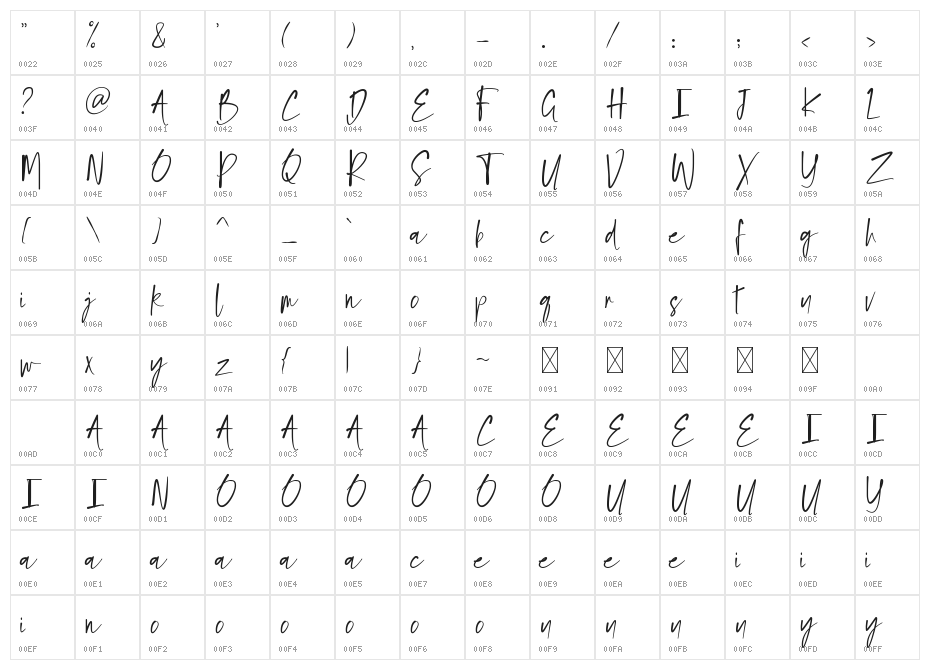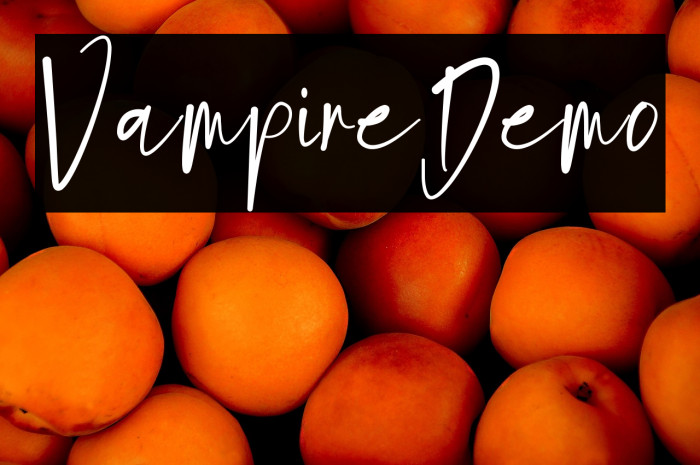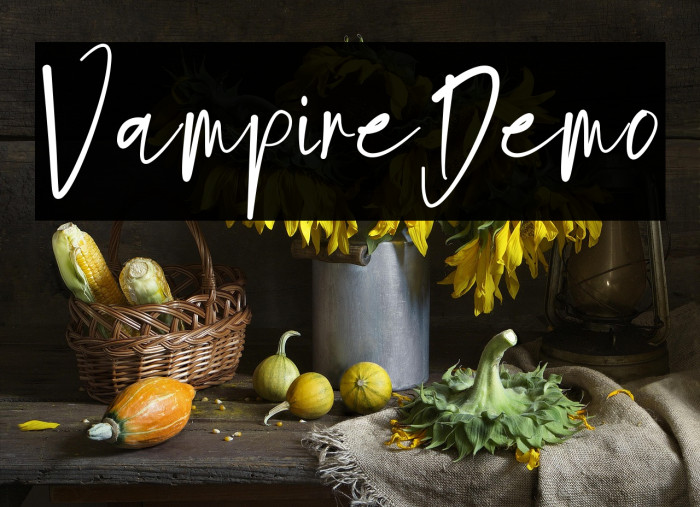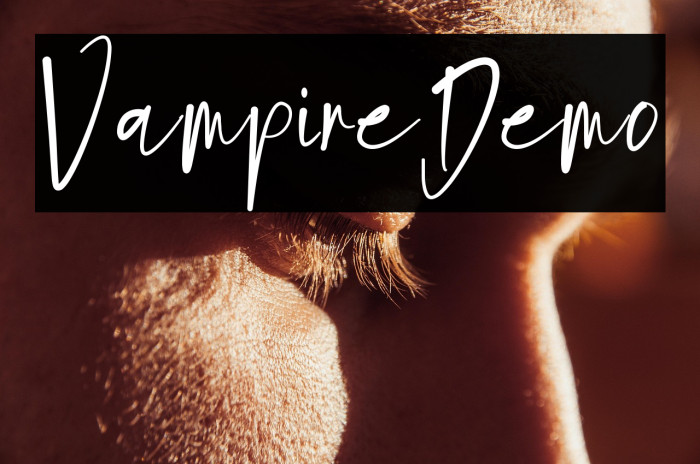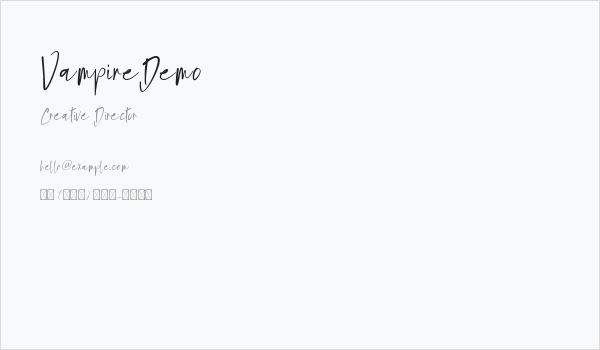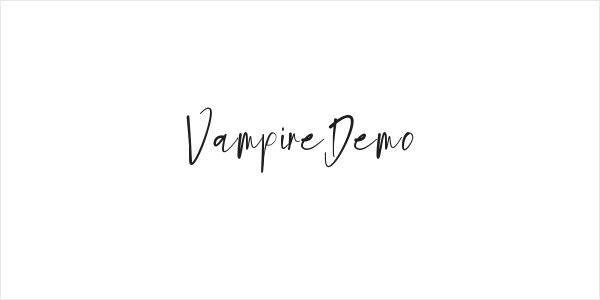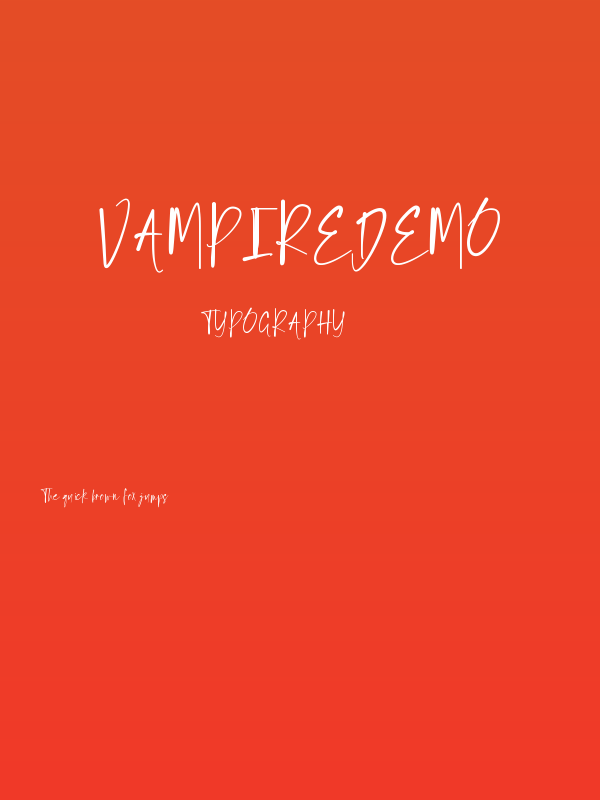
VampireDemo Font
VampireDemo Description
A handwritten, expressive script font with tall, narrow letterforms and playful, irregular strokes. The characters have a casual, energetic feel with varying baseline heights and a mix of thick and thin lines.
| Width | Condensed |
| Overall Style | Decorative, Modern, Playful |
| Use Case | Headlines, Logos, Short quotes, Decorative text |
| Proposed Projects | Greeting cards, invitations, posters, social media graphics, branding for creative businesses. |